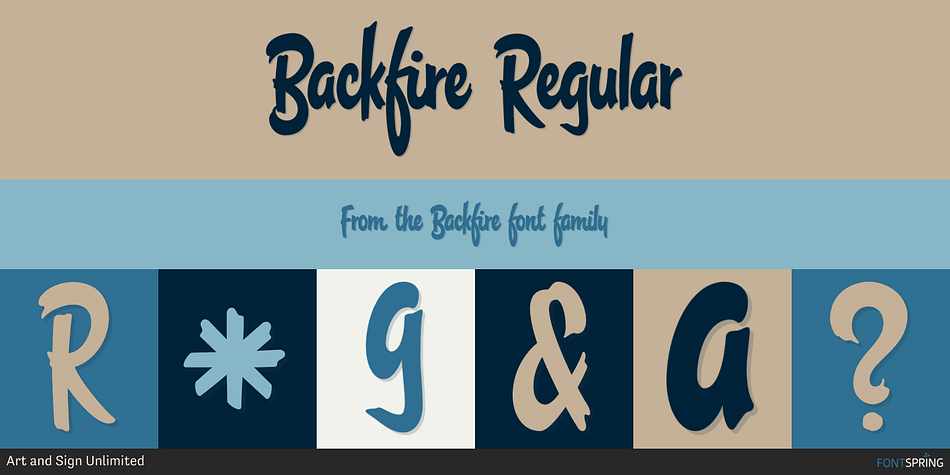
Backfire is a brush script font published by Art and Sign Unlimited.
Backfire Regular
Backfire is a bold, brushed script that is loaded with character and is a lot of fun to use. Great for logo design, posters, labels, branding and so much more.
Backfire comes with alternate characters for the lower case s and r that fit right in when you need them.